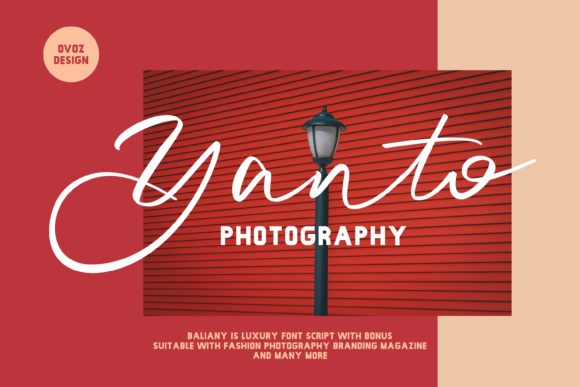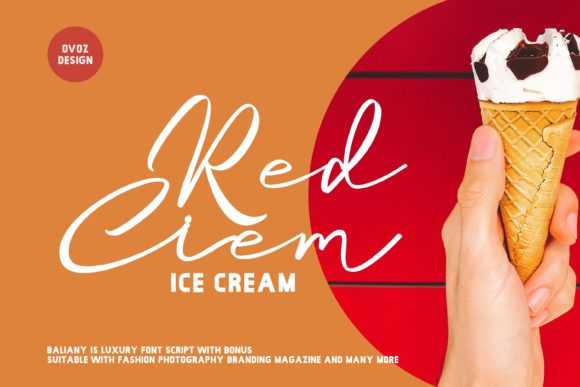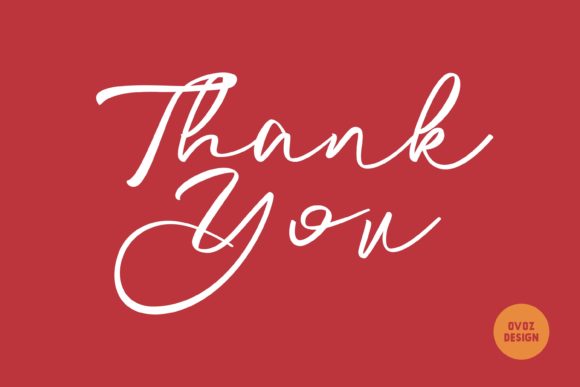
Adding a Touch of Elegance to Your Designs
Remember that moment when you stumbled upon the perfect font, and everything just clicked? It’s like finding a hidden gem that elevates your entire design project to the next level. For many designers, that moment is about to arrive with the introduction of the Baliany Script Font.
Baliany Script Font is a luxurious and elevated handwritten font that exudes a cool vibe, perfect for adding a contemporary feel to any design project. Whether you’re working on a high-end branding campaign or a trendy social media post, this font is sure to make a statement. Its versatility and sophistication make it a valuable addition to any designer’s toolkit, allowing you to create stunning visuals that leave a lasting impression.
Baliany Script Font Key Features
- Unique Characteristics: Elegant, cursive script with high-end feel and smooth connections
Baliany Script Font Review
I recently had the chance to work with the Baliany Script Font, and I’m excited to share my honest review with you. Overall, I was pleasantly surprised by this font’s charm and potential.
- Unique character: Baliany Script Font has a distinct, elegant feel that sets it apart from more common script fonts.
- High-quality design: The font’s intricate details and flowing lines are well-executed, making it perfect for decorative or display purposes.
- Great for creative projects: With its whimsical and artistic vibe, Baliany Script Font is ideal for designers looking to add a touch of personality to their work.
- Readability issues: While the font looks beautiful, its letterforms can be quite busy and may be challenging to read, especially in larger blocks of text.
- Limited font weights: The font’s limited range of weights and styles may not provide enough options for designers who need to create varying levels of emphasis.
While Baliany Script Font has some limitations, its unique character and high-quality design make it a great addition to any designer’s toolkit. It’s perfect for creative projects that require a touch of elegance and whimsy. Just be mindful of readability issues and limitations in font weights when using this font.
Tips for Getting the Most Out of Baliany Script Font
To get the most out of Baliany Script Font, try using it for:
- Brand logos and typography
- Quotes and inspirational graphics
Baliany Script Font is commonly used for:
- Handwritten-style text
- Artistic and creative projects
- Wedding and event graphics
Alternatives to Baliany Script Font for Designers
Baliany Script Font is a beautiful, elegant script font that can add a touch of sophistication to any design. However, there are other alternatives that designers can consider. Here are a few options:
Carolyna Pro is a modern, luxurious script font that is perfect for high-end designs. It has a elegant and refined feel, making it ideal for wedding invitations, luxury branding, and other high-end projects. Compared to Baliany Script Font, Carolyna Pro has a more modern and sleek feel, with a wider range of ligatures and connections.
Great Vibes is a beautiful, handwritten script font that is perfect for creative and artistic designs. It has a playful and carefree feel, making it ideal for projects such as posters, flyers, and social media graphics. Compared to Baliany Script Font, Great Vibes has a more casual and relaxed feel, with a wider range of swashes and flourishes.
Alex Brush is a elegant, handwritten script font that is perfect for projects that require a touch of sophistication and elegance. It has a refined and classic feel, making it ideal for wedding invitations, business cards, and other professional projects. Compared to Baliany Script Font, Alex Brush has a more refined and classic feel, with a wider range of ligatures and connections.